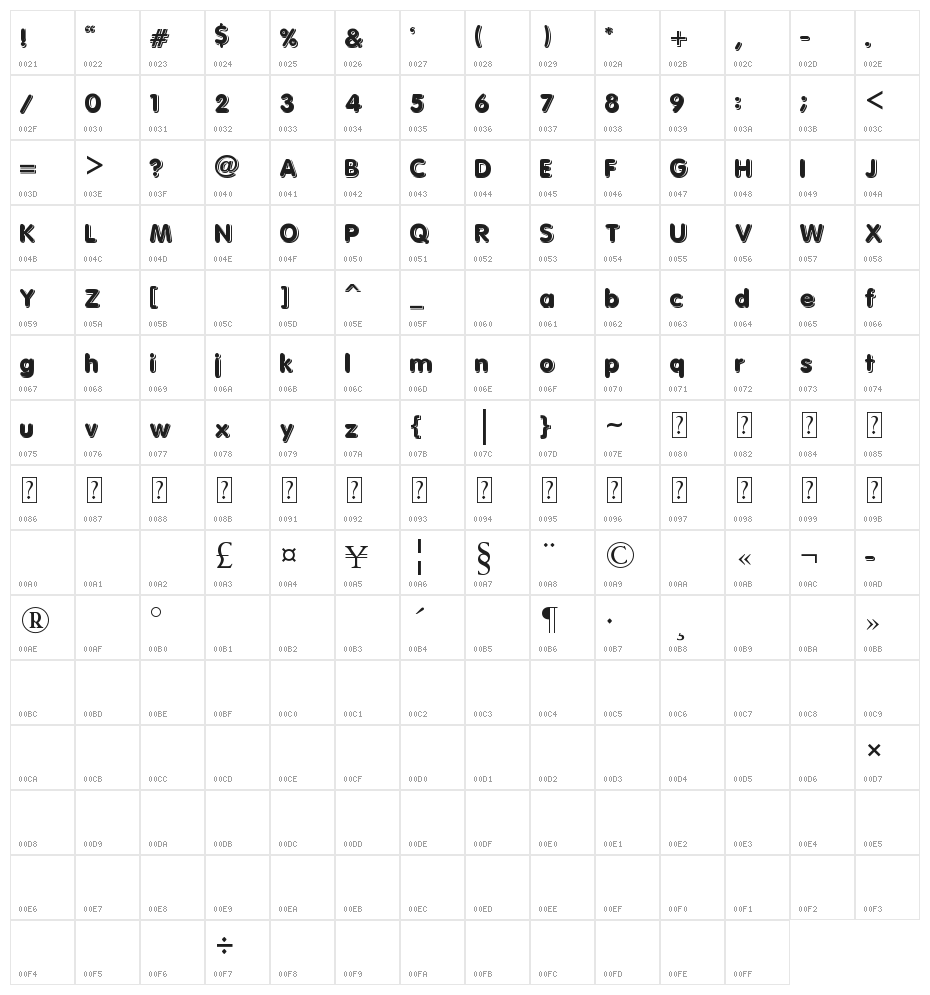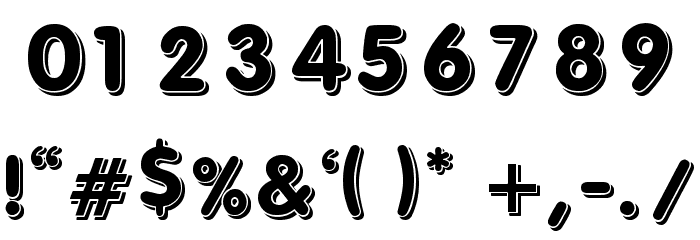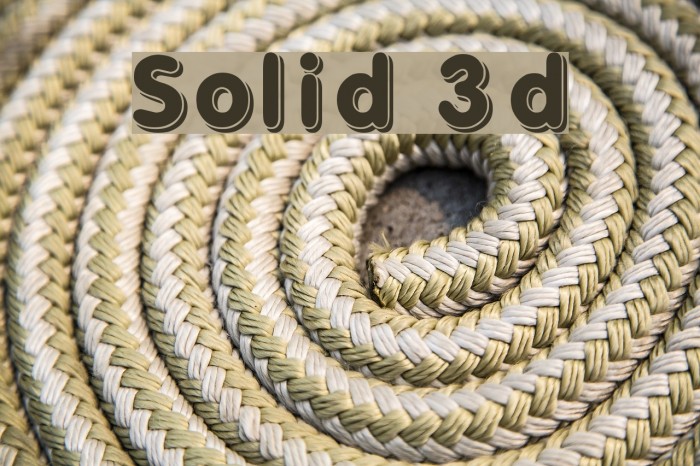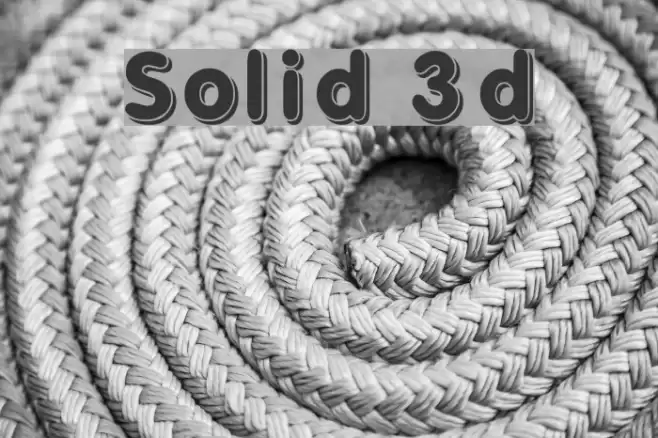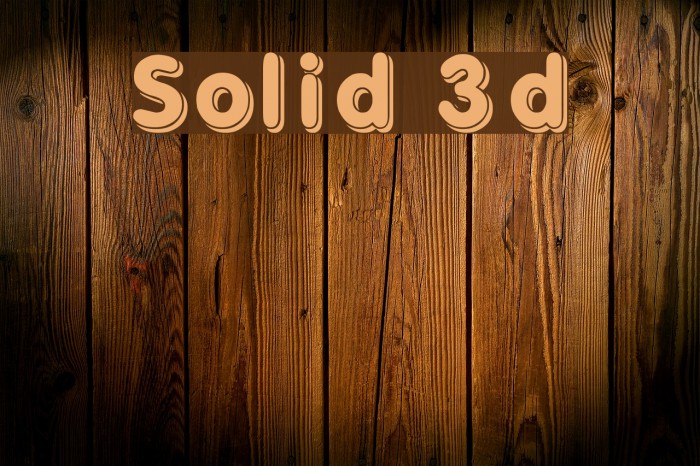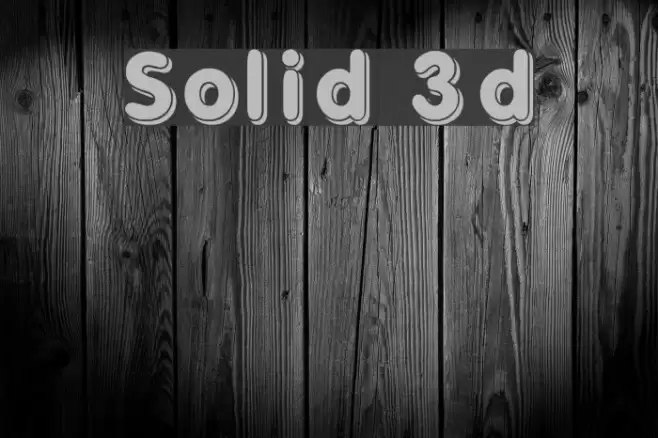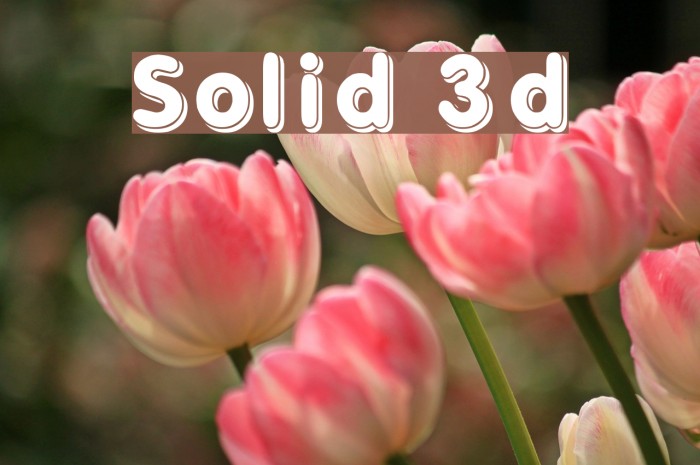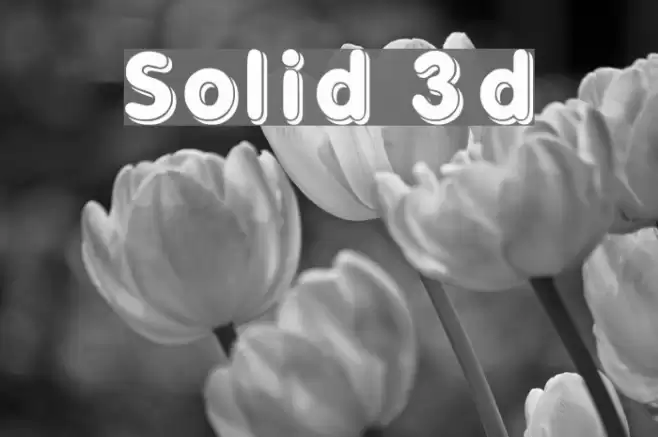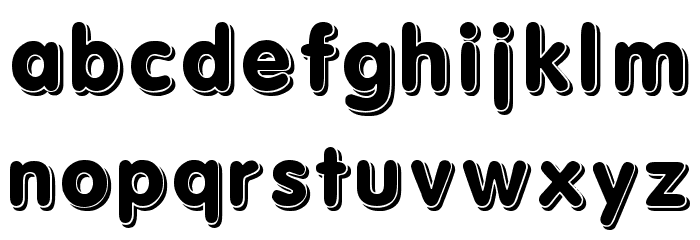
Solid 3d Font
Solid 3d Description
This font features a bold, three-dimensional appearance with a playful and eye-catching style. The letters are thick and rounded, with a solid shadow effect that gives them a distinct 3D look. The uppercase and lowercase characters maintain a consistent weight, enhancing readability while adding a sense of depth. The numerals and special characters follow the same design principles, ensuring uniformity across all glyphs. This font's unique style makes it ideal for projects that require a fun and engaging visual impact.
| Overall Style | Playful, Modern |
| Proposed Projects | Ideal for children's books, posters, video game graphics, and playful branding. |